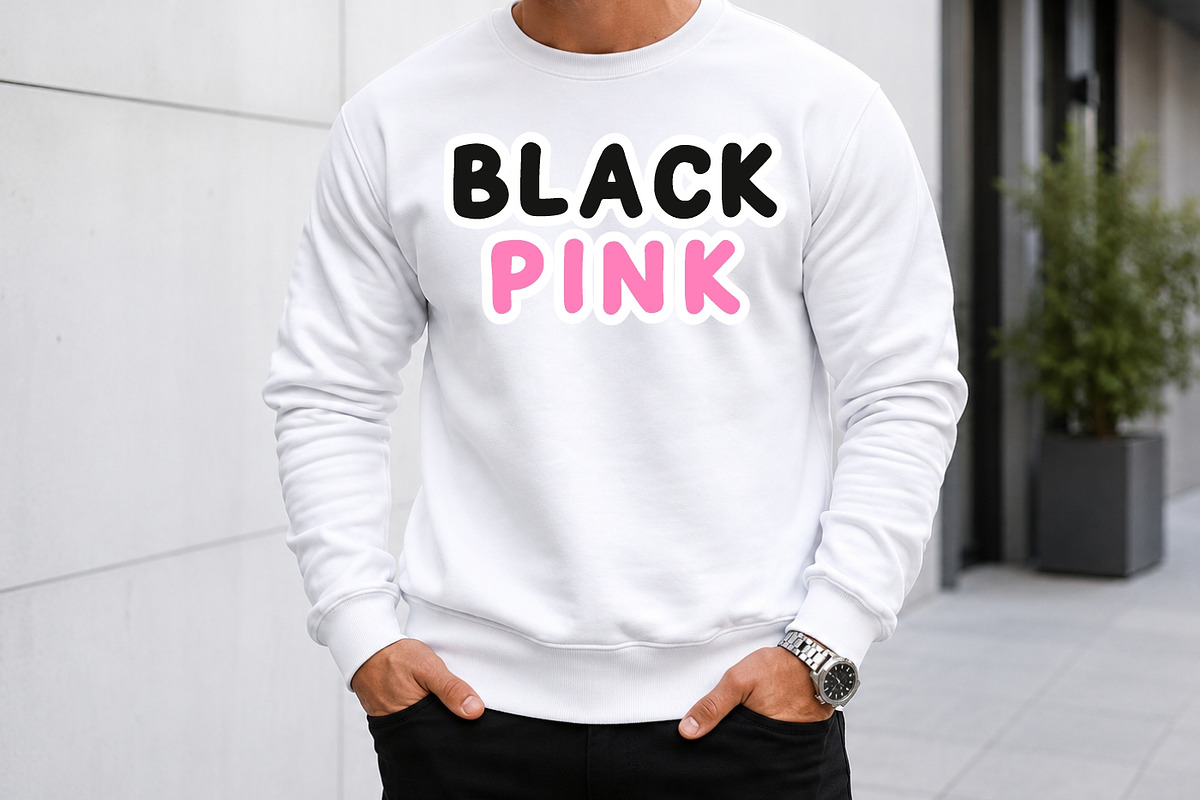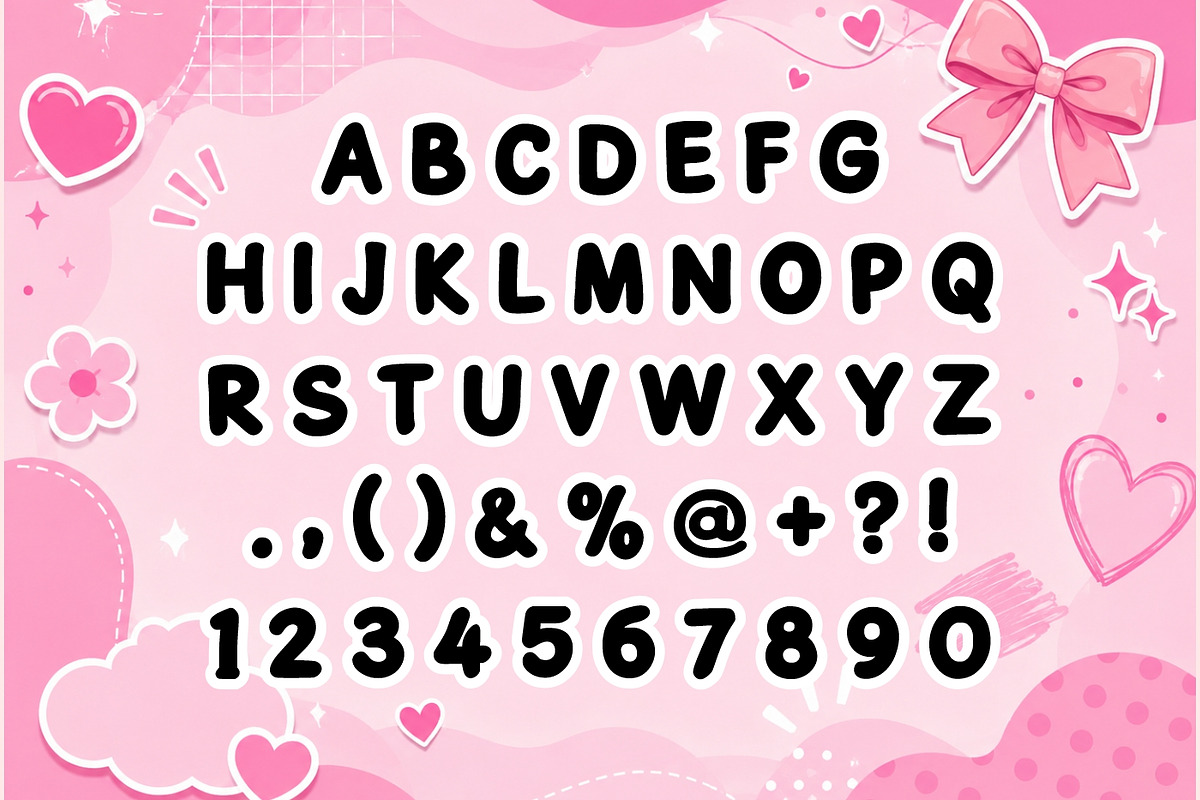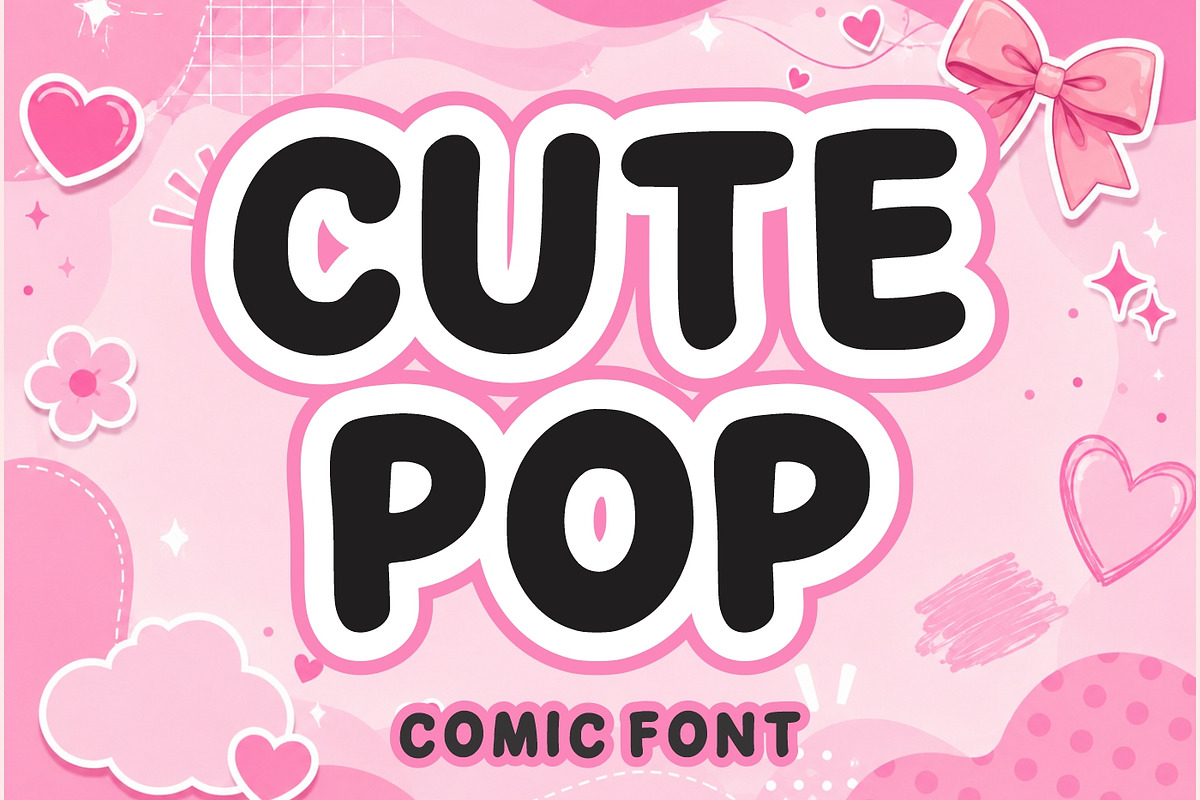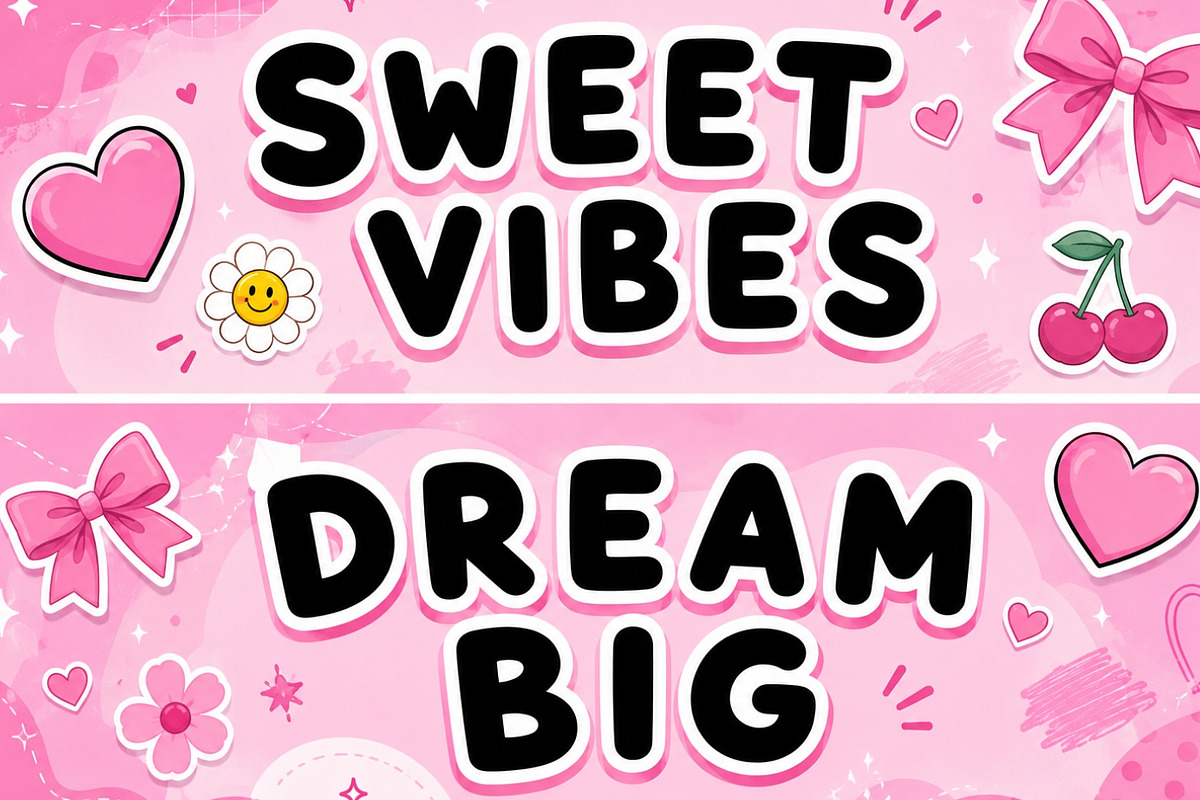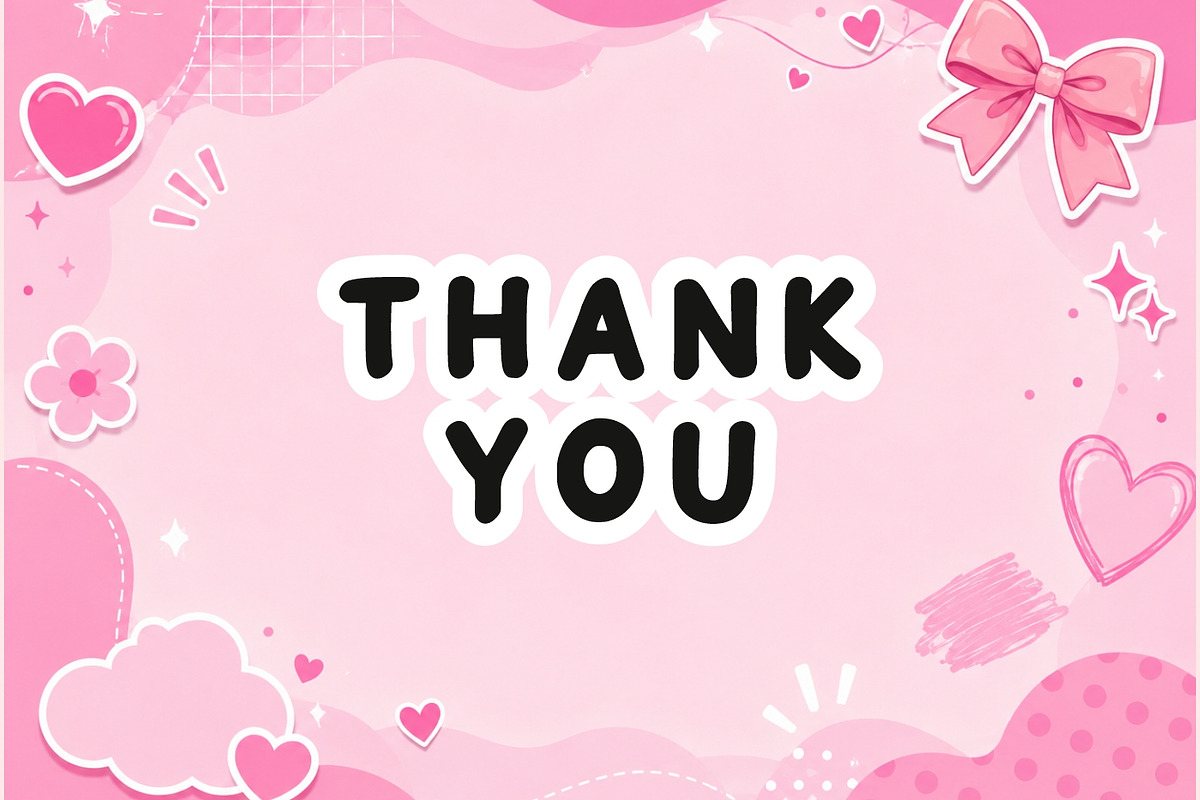
Cute Pop
Cute Pop is a charming and playful comic display font designed to bring joy, creativity, and personality to every project. Featuring bold rounded letterforms, smooth curves, and a friendly cartoon-inspired appearance, this font instantly captures attention while maintaining excellent readability.
Inspired by cute pop culture, kawaii aesthetics, children’s illustrations, and modern comic design trends, Cute Pop delivers a cheerful and energetic vibe perfect for projects that need a fun and approachable look. The thick characters and soft edges create a welcoming feel, making it ideal for brands and designs targeting younger audiences or anyone who loves colorful, happy typography.
Whether you’re creating children’s books, toy packaging, stickers, comic titles, YouTube thumbnails, social media content, birthday invitations, educational materials, merchandise, or playful branding, Cute Pop helps your designs stand out with confidence and charm.
Its versatile style works beautifully with bright colors, outlines, shadows, and layered effects, allowing designers to create eye-catching headlines and memorable visual identities. Cute Pop is perfect for both print and digital applications, providing a professional yet fun appearance that appeals to a wide range of audiences.
Bring happiness, creativity, and a touch of cartoon magic to your next project with Cute Pop — a font designed to make every design feel more vibrant, friendly, and unforgettable.
Perfect For : Comic Titles Kids Branding Toy Packaging Sticker Designs Children’s Books Birthday Invitations T-Shirt Designs School Projects Social Media Graphics YouTube Thumbnails Greeting Cards Merchandise Design